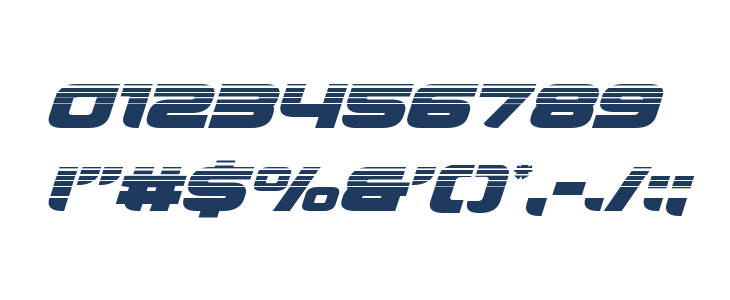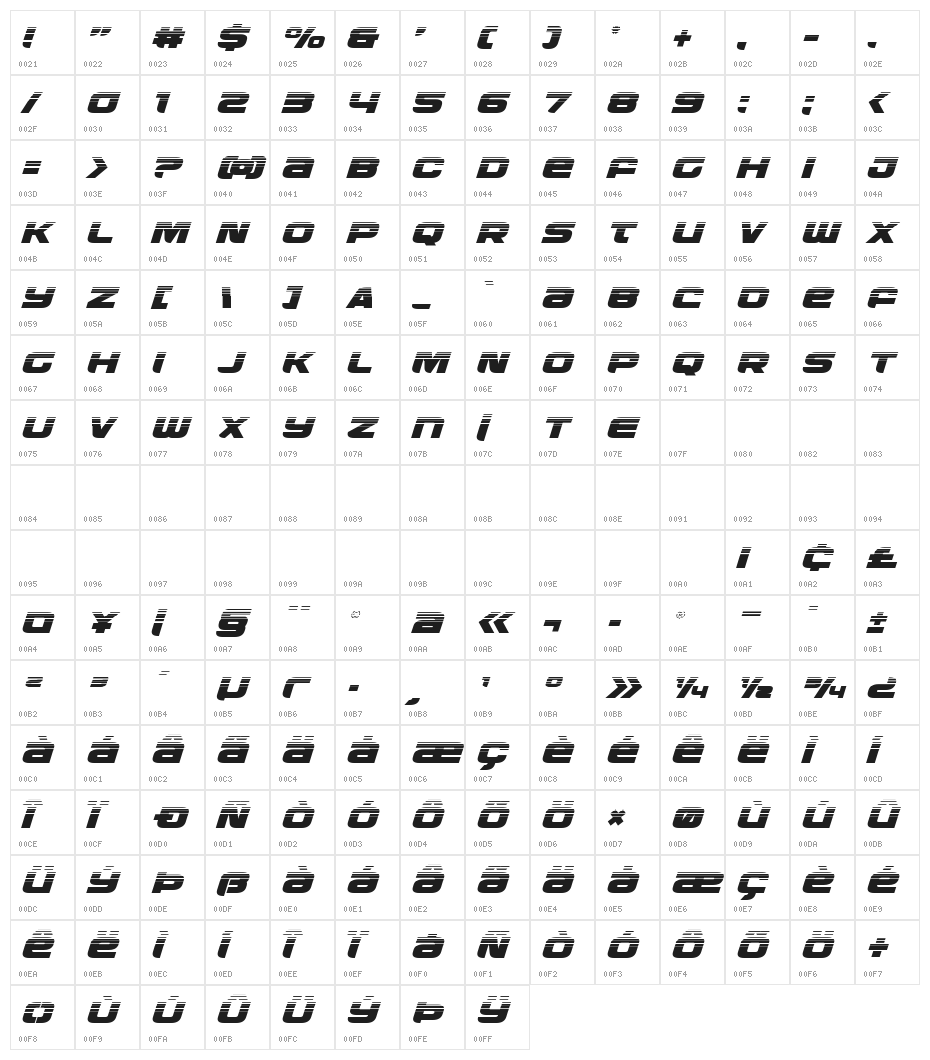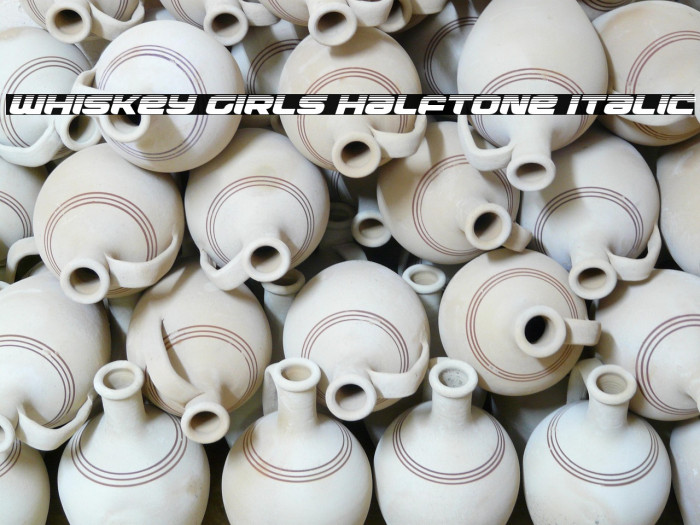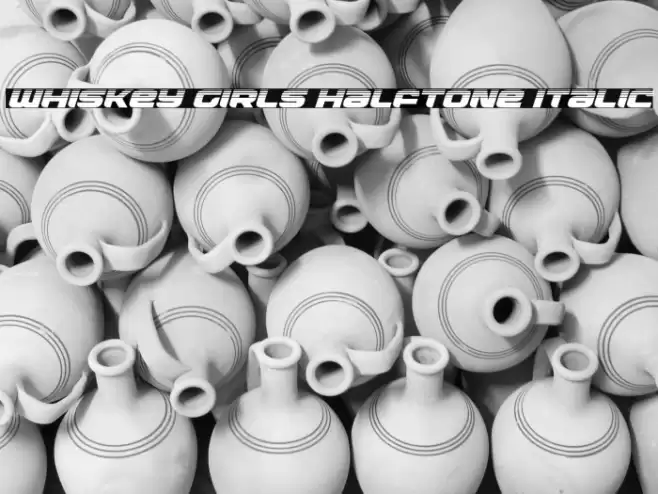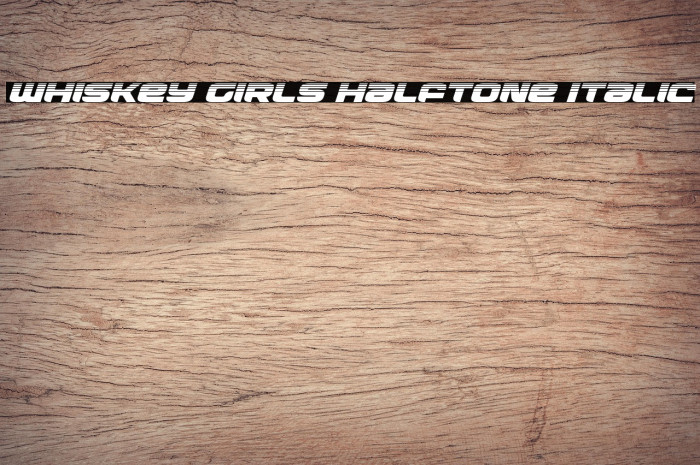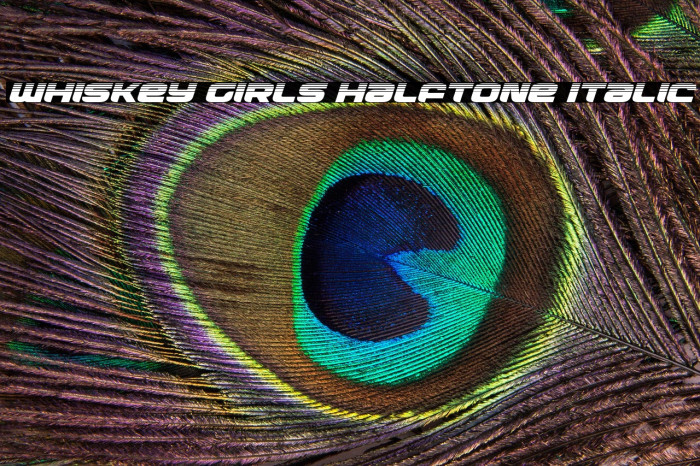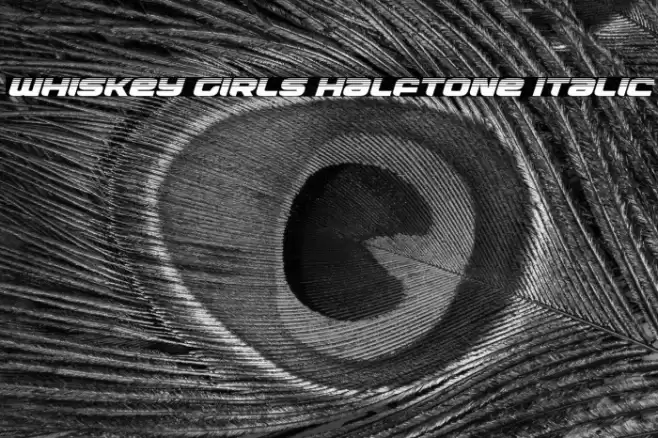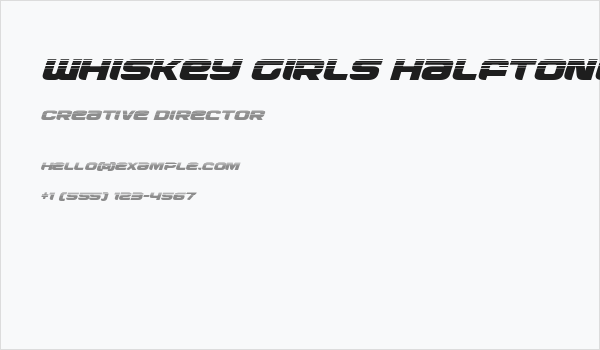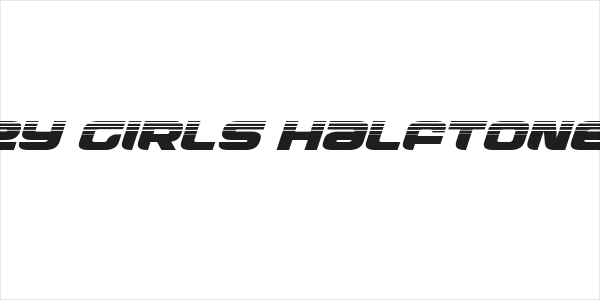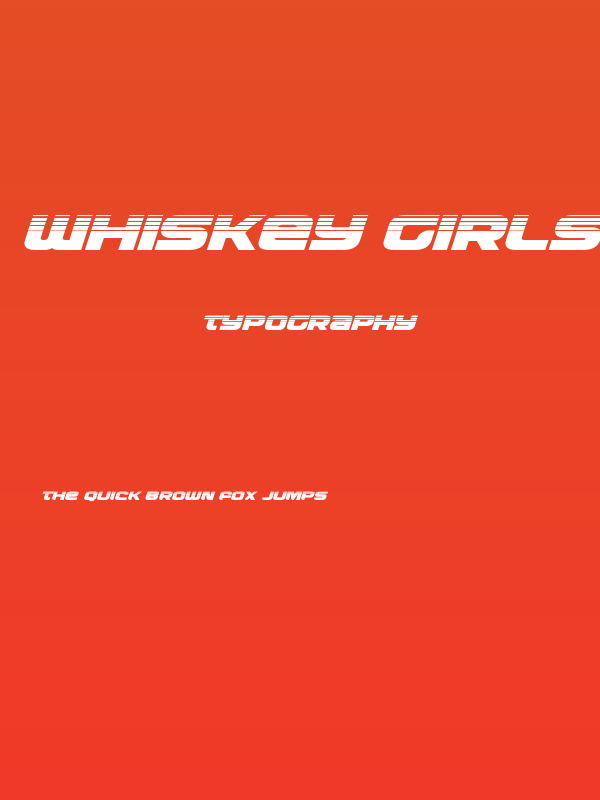
Whiskey Girls Halftone Italic Font
Whiskey Girls Halftone Italic Description
This font features a bold, italicized style with a distinct halftone effect that gives it a dynamic and modern appearance. The characters are designed with horizontal lines that create a sense of movement and energy. The uppercase and lowercase letters maintain a consistent style, with rounded edges and a slightly condensed form. The numerals and special characters follow the same design principles, ensuring uniformity across all glyphs. This font is particularly eye-catching and suitable for projects that require a futuristic or tech-inspired aesthetic.